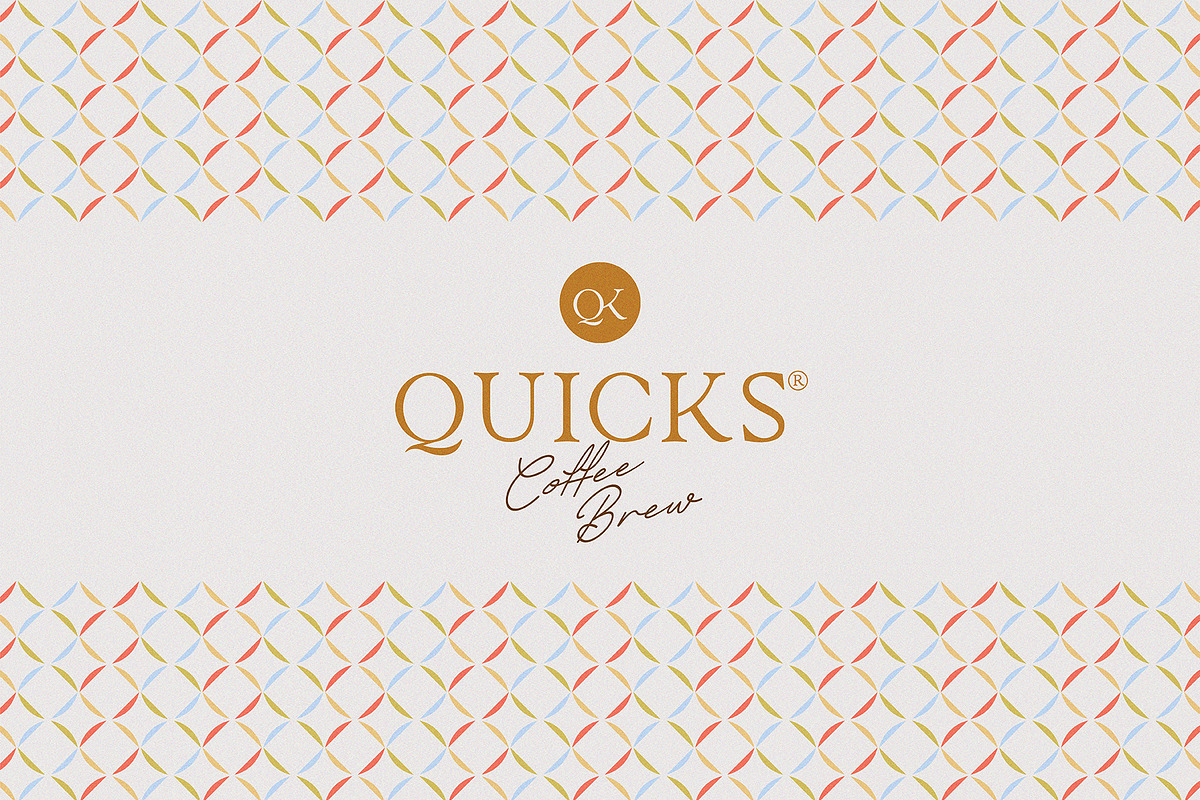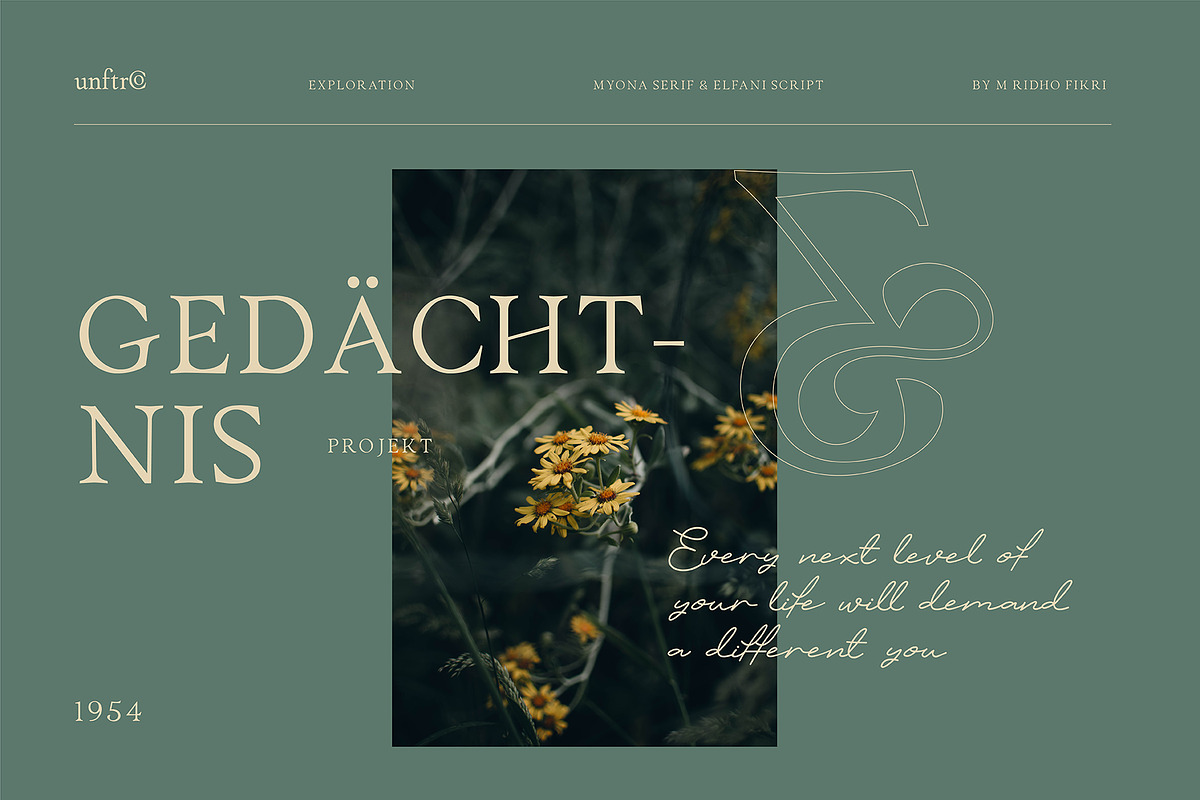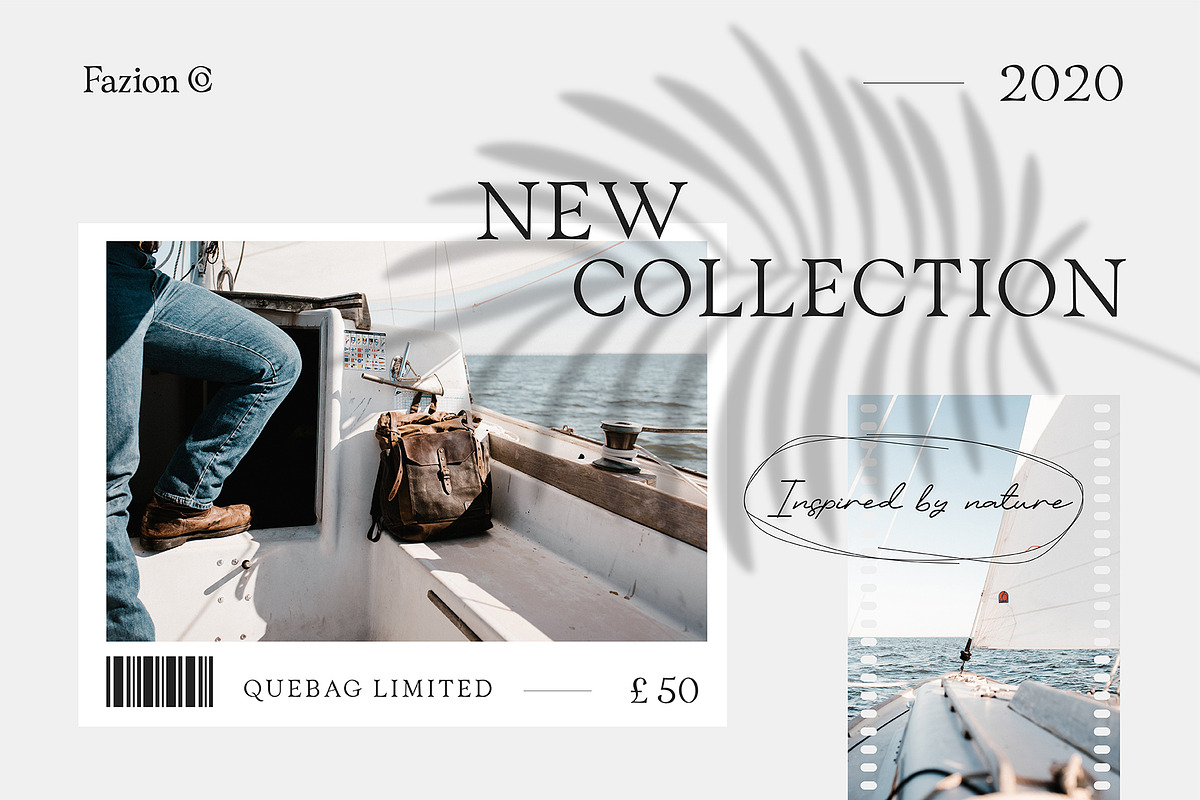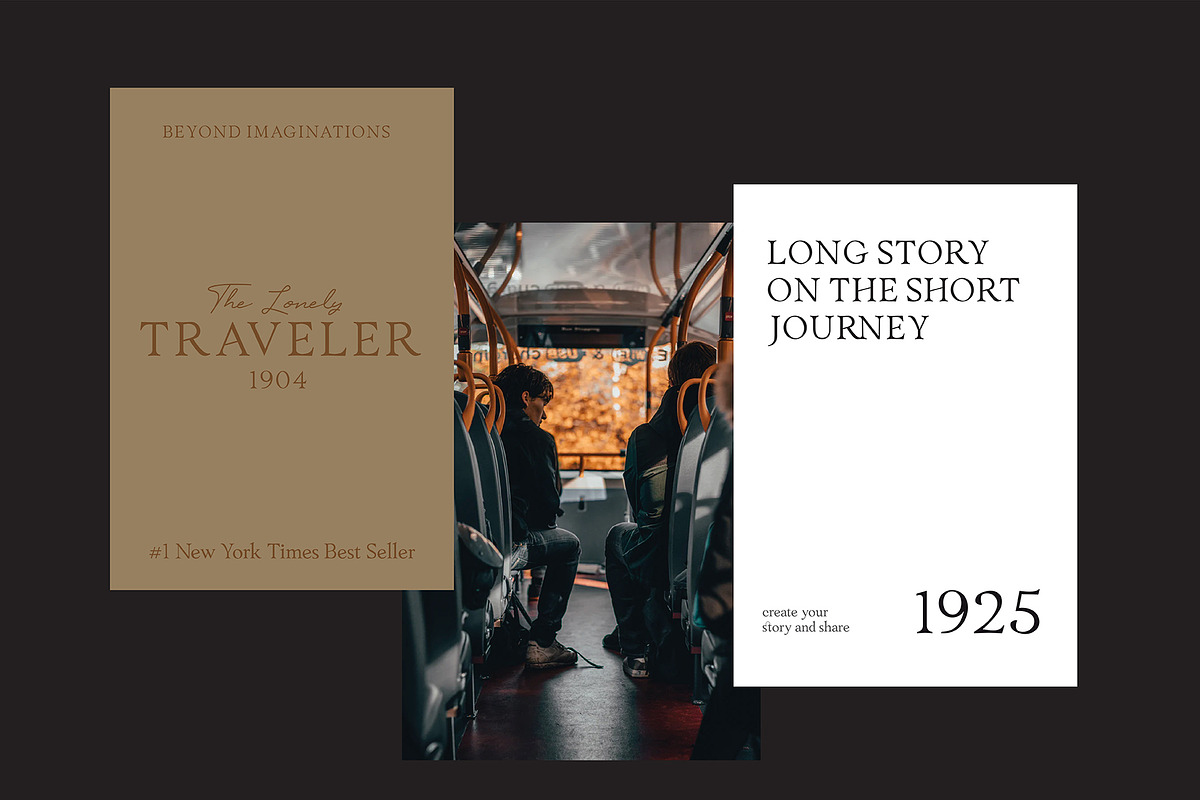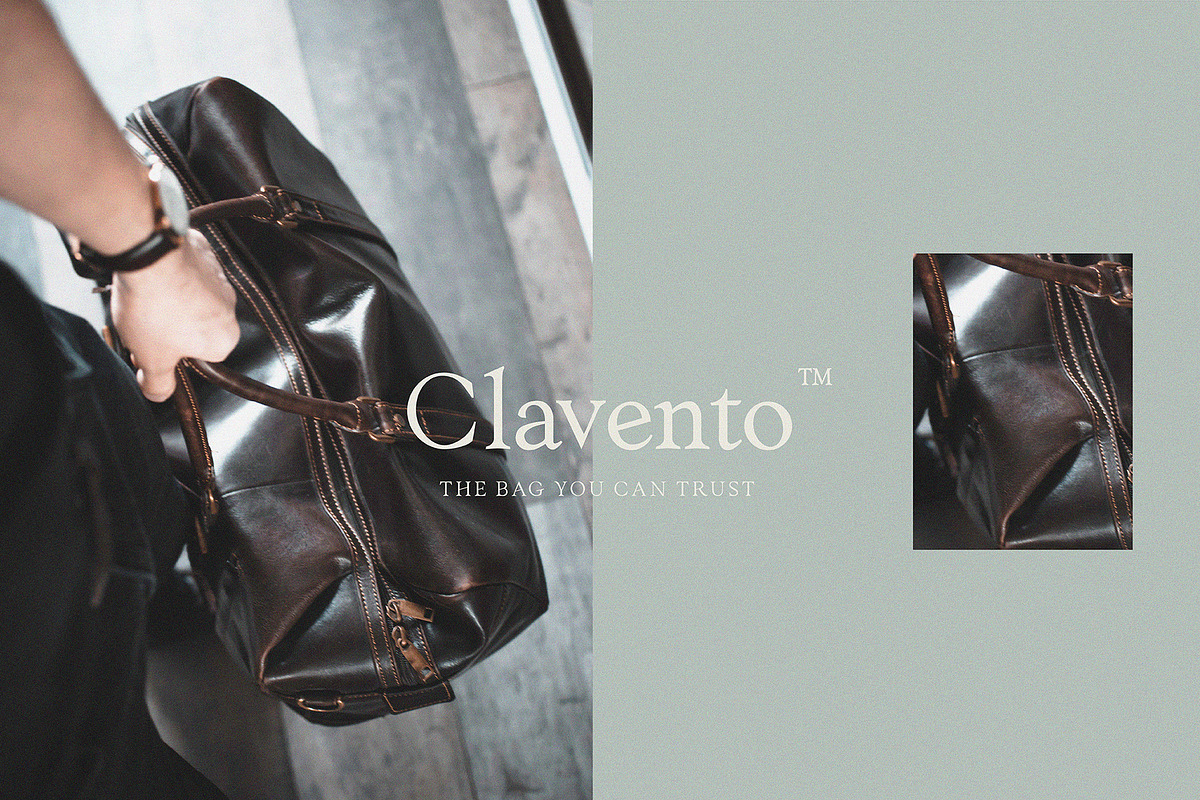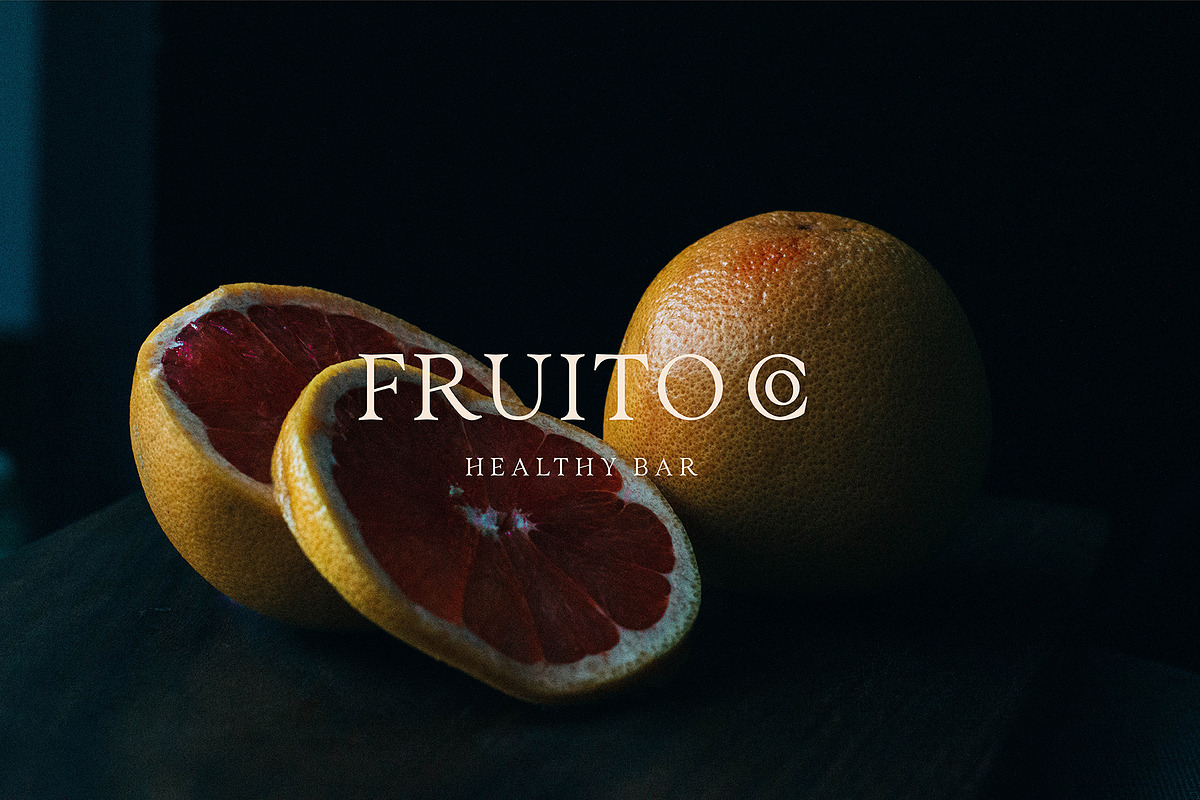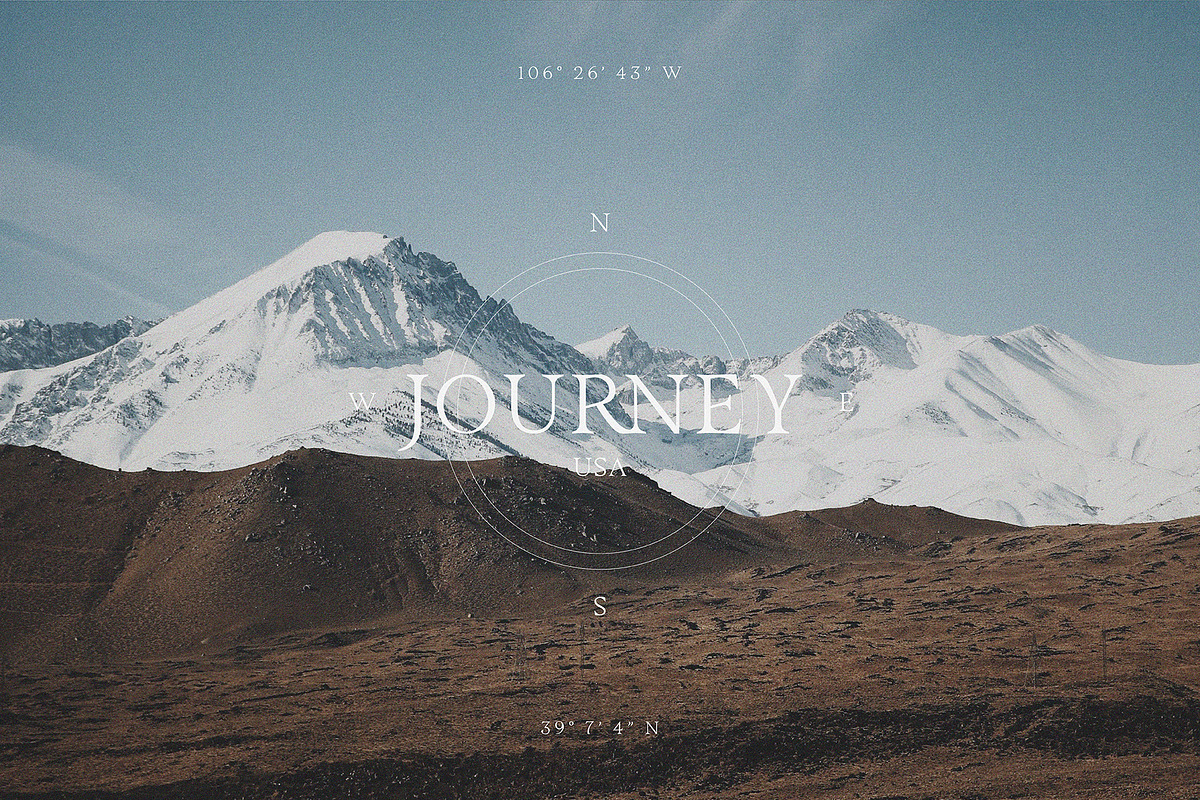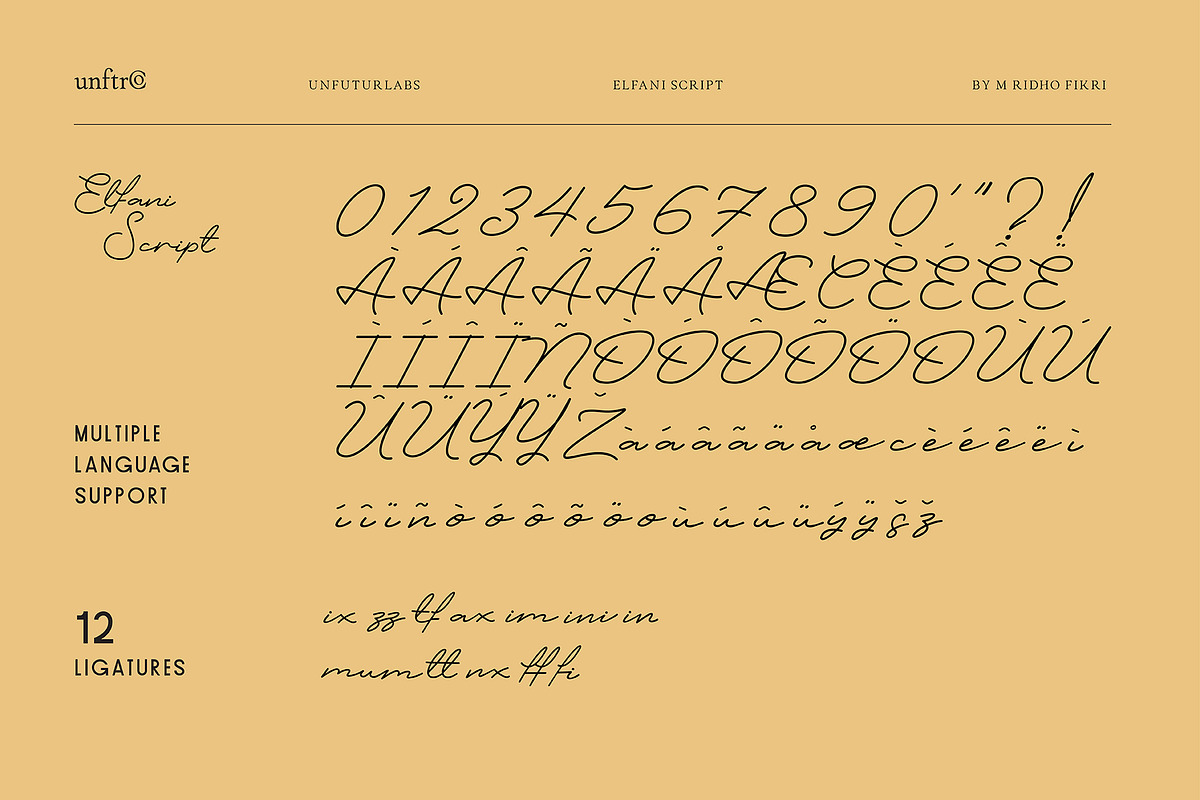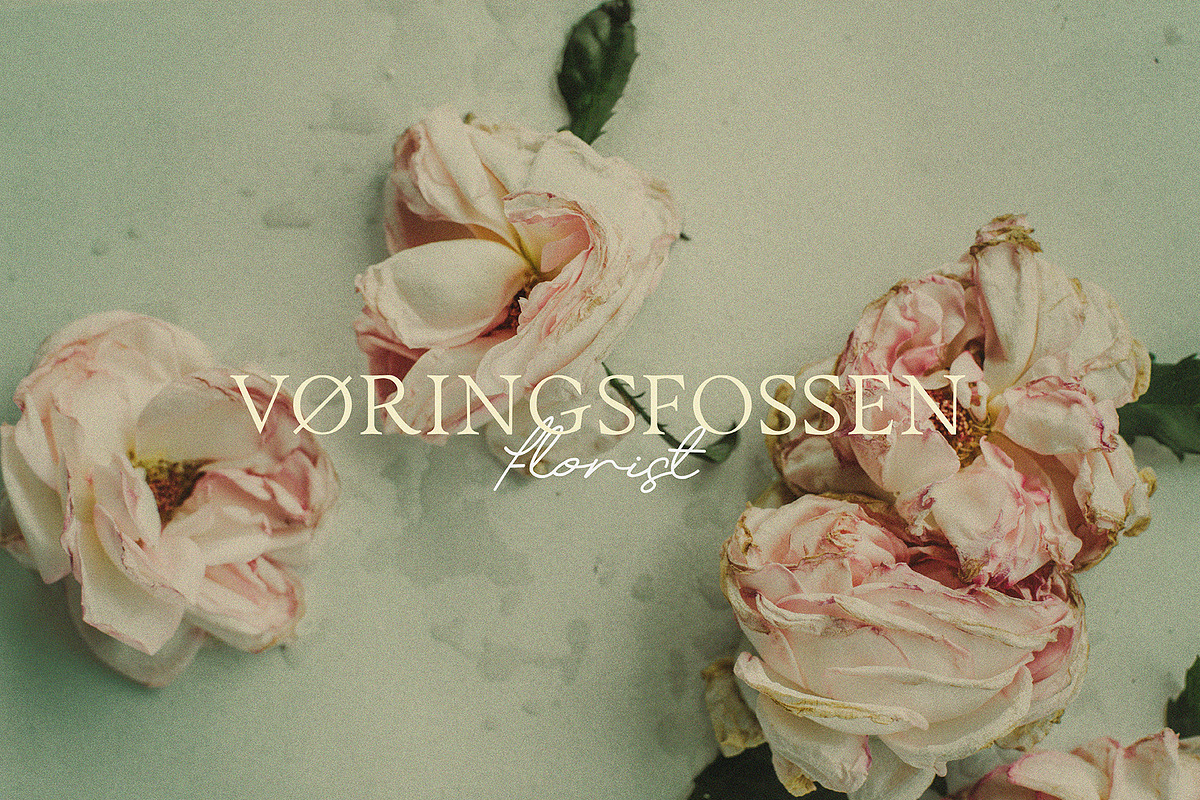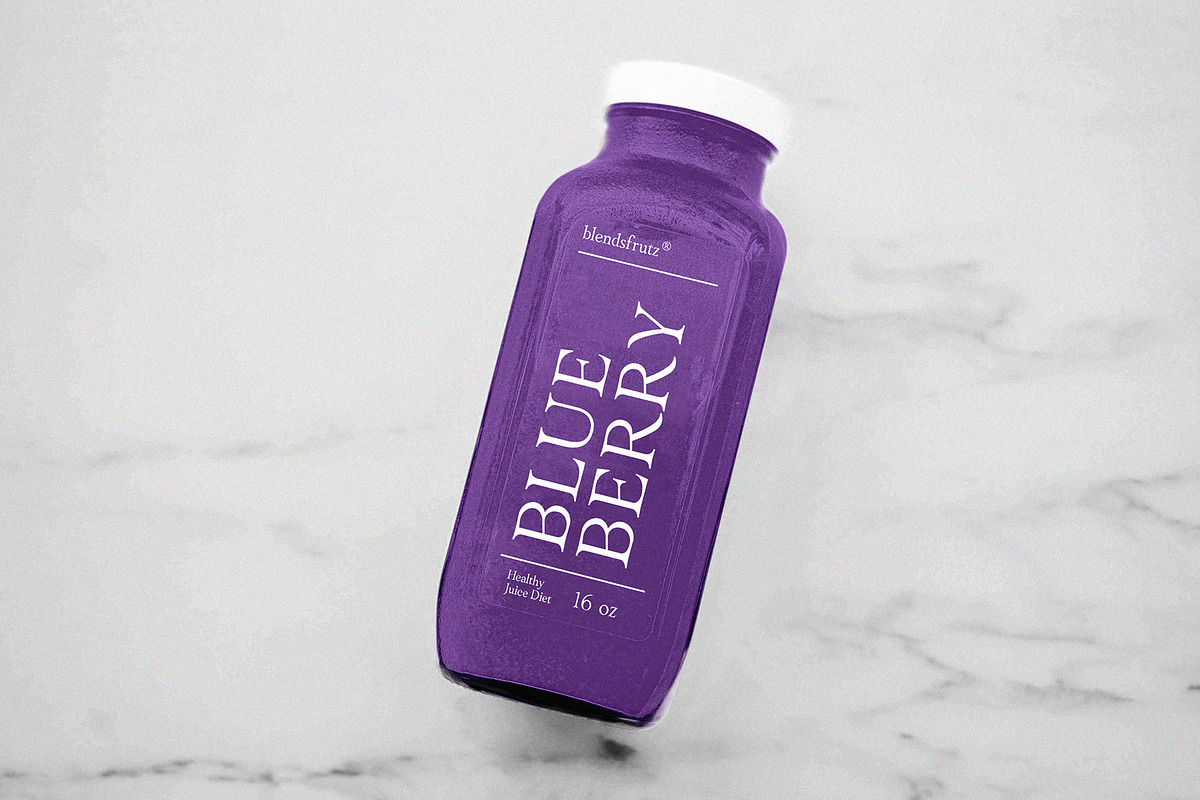
Myona Serif & Elfani Script + Extra
Hey everyone, get your luxurious, minimal and modern design look with this Myona Serif and Elfani Script. Crafted especially for you who looking for additional design elements and font collections. It's suitable for logo, packaging design, menu, wedding invitation, bumper opening video and many more. And one more special thing is 5 Free Instagram Stories Templates
1. Myona Serif
A minimal and elegant typeface inspiring from combined old fashioned style and semi-modern looks. Upper & lowercase characters. It's containing with ligatures, glyph, and multiple language support.
2. Elfani Script
A stylist handrawn script . Upper & lowercase characters containing with ligatures and multiple language support.